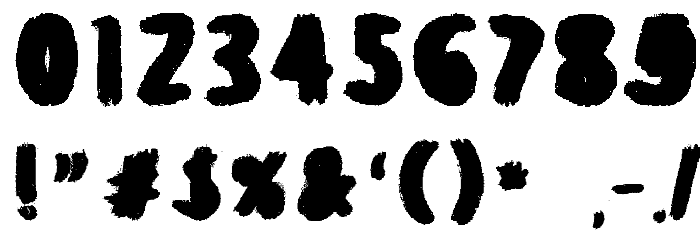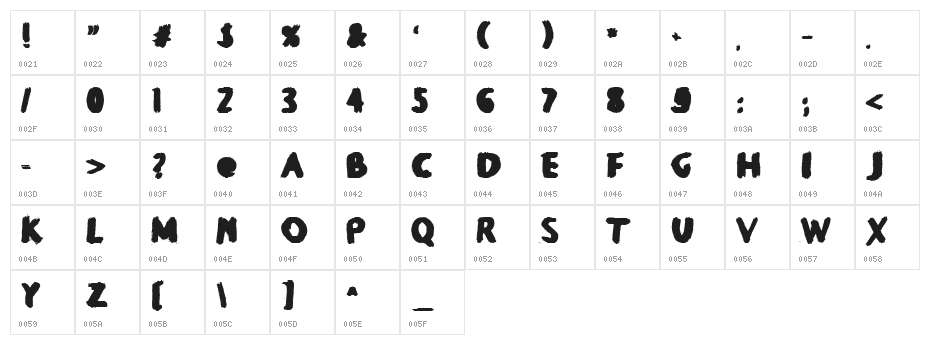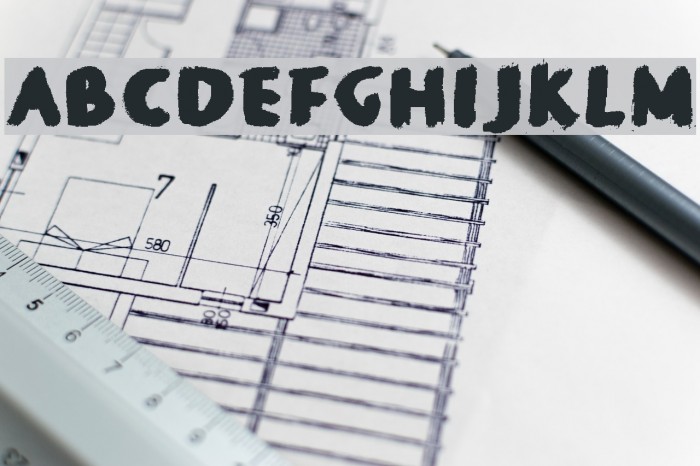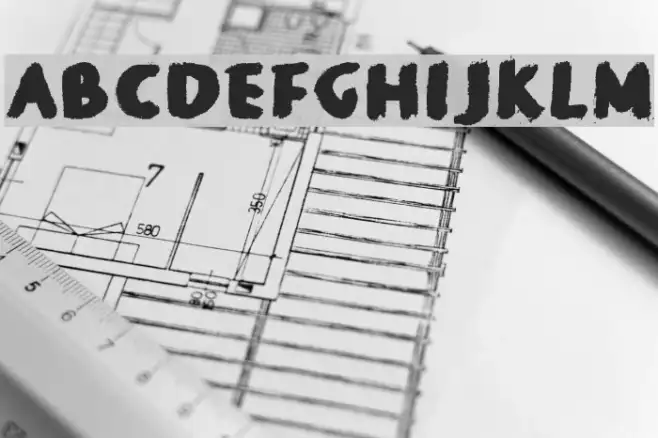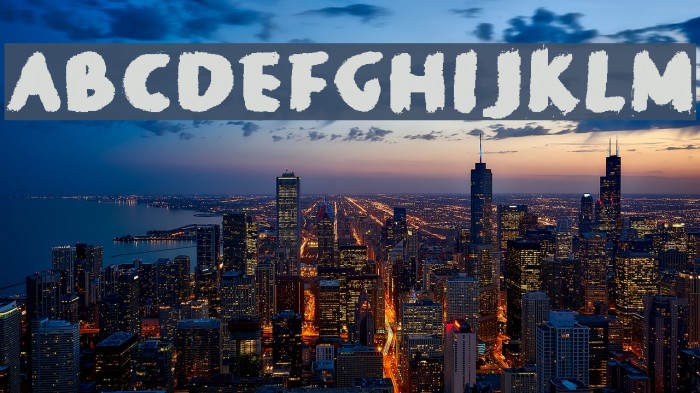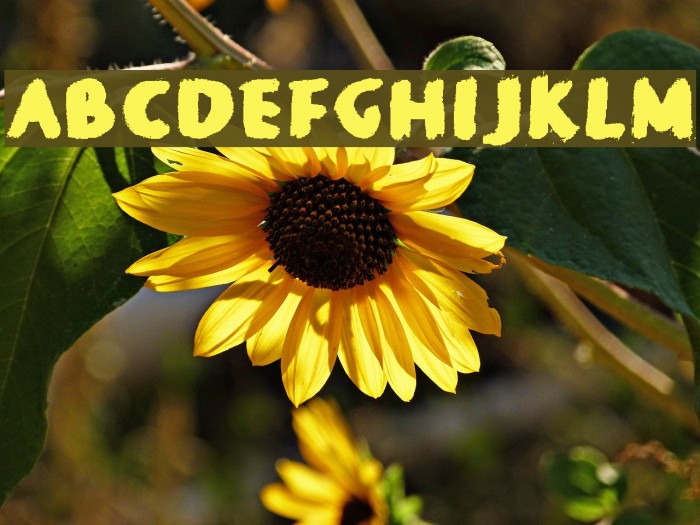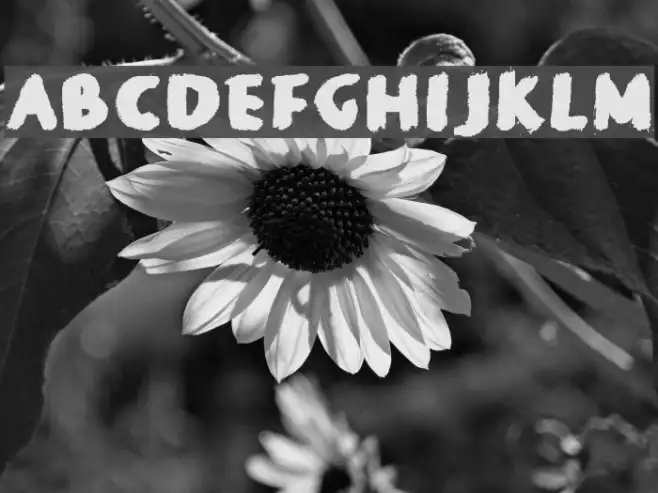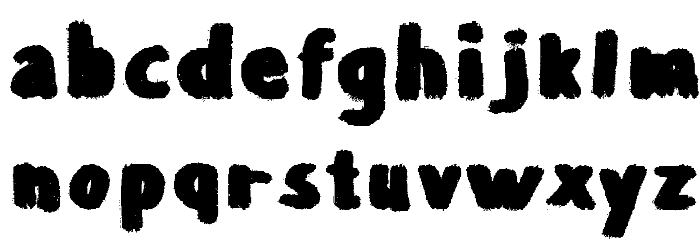
Balballa Font
Balballa Description
This font features a bold and expressive style with a hand-painted appearance. The characters have a rough, textured edge that gives them a dynamic and energetic feel. The uppercase and lowercase letters maintain a consistent weight, contributing to a cohesive look. The numerals and special characters follow the same stylistic approach, ensuring uniformity across all glyphs. The font's boldness and unique texture make it stand out, ideal for projects that require a strong visual impact. Its playful yet assertive style is perfect for creative and artistic applications.
| Proposed Projects | Ideal for posters, album covers, branding, and any project needing a bold, artistic touch. |